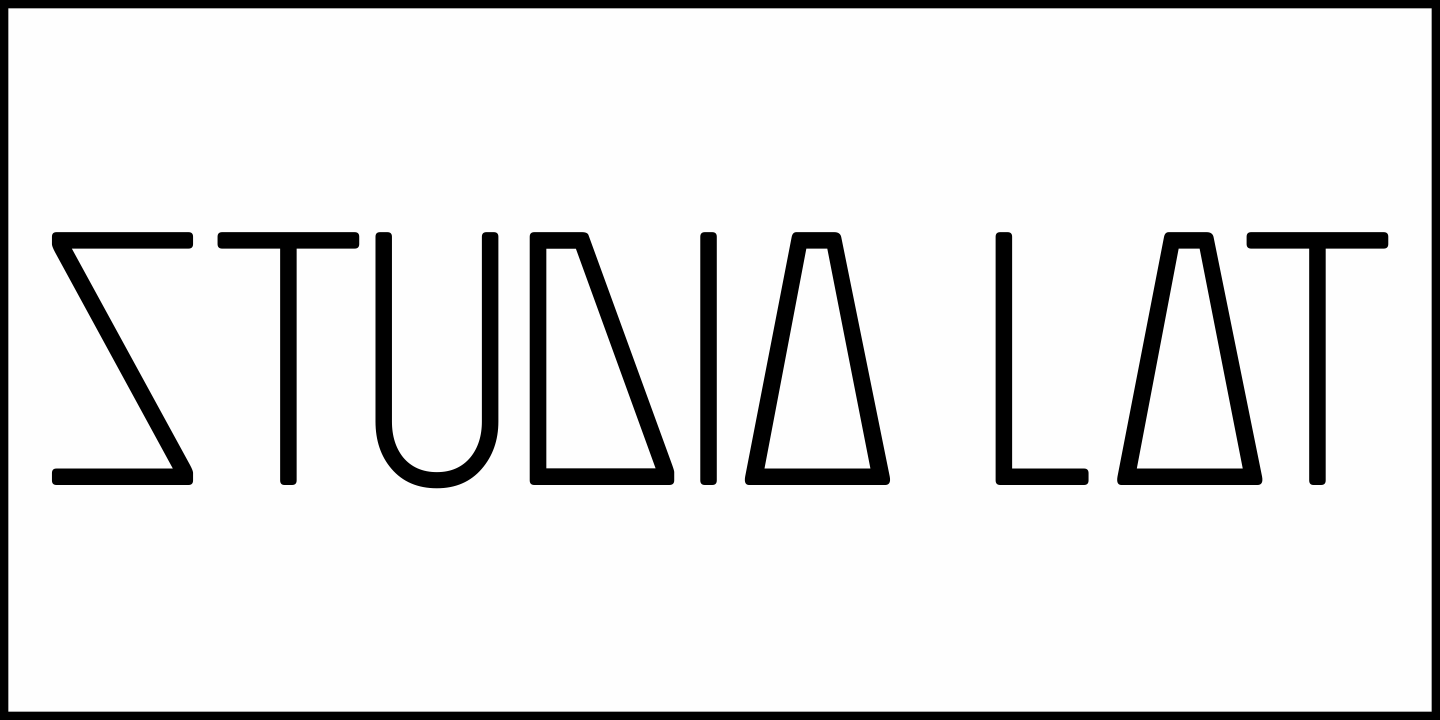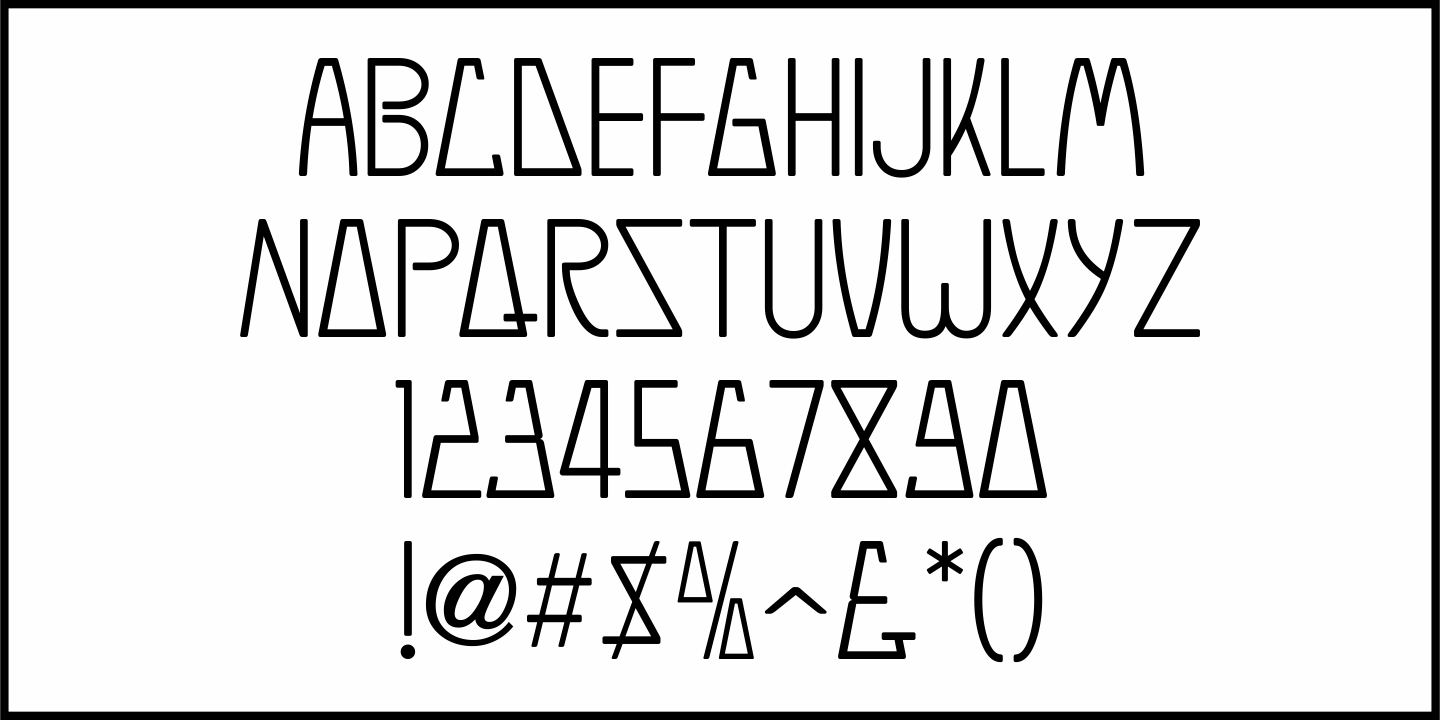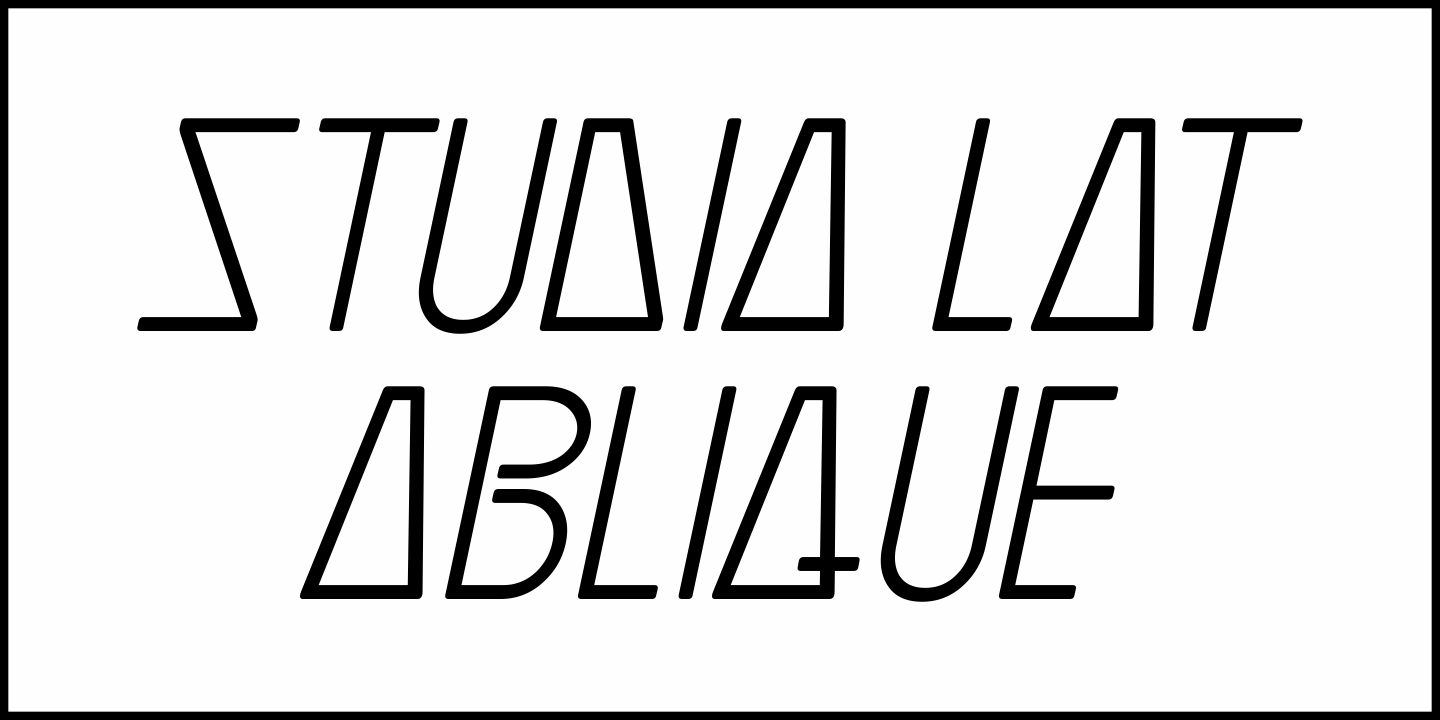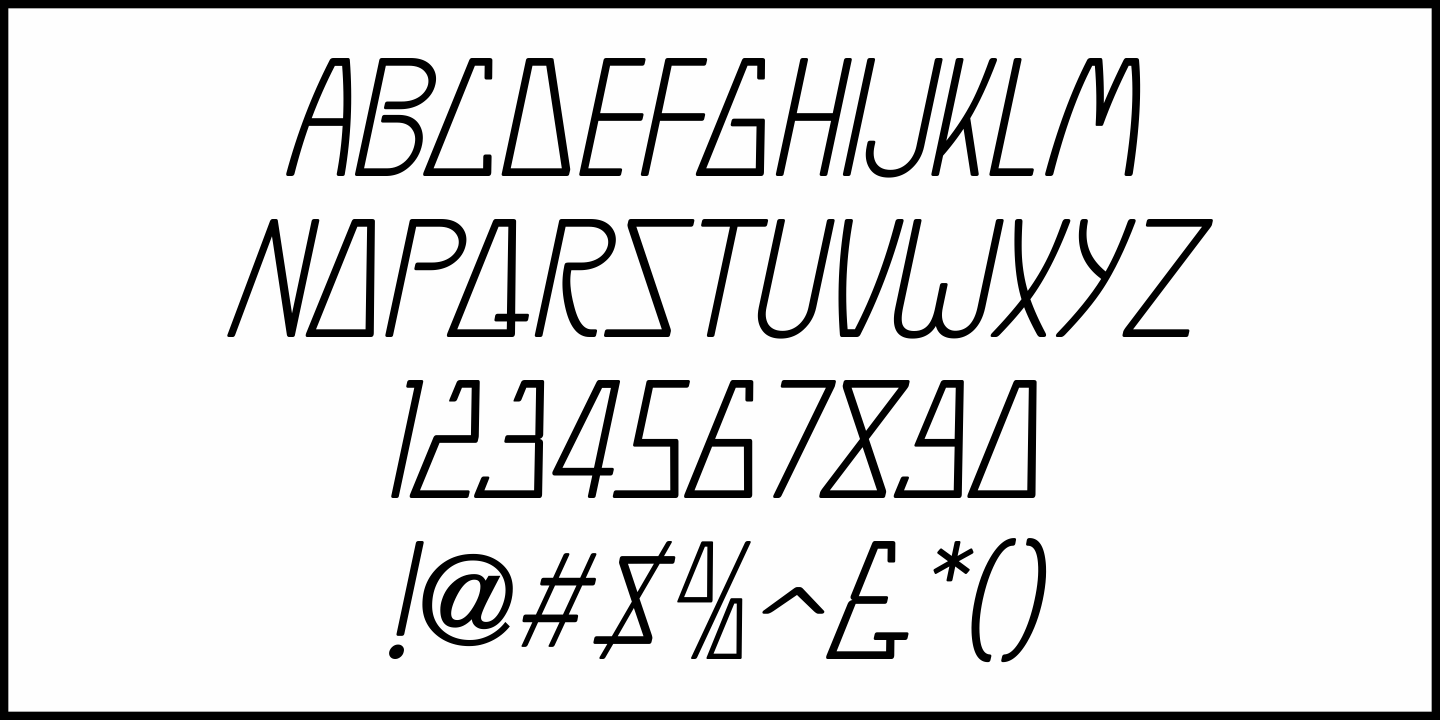
Studio Lot
Seen in vintage photographs, the Art Nouveau/Art Deco-influenced sign hanging over the entrance to Metro-Goldwyn-Mayer studios inspired
Studio Lot JNL, which is available in both regular and oblique versions.